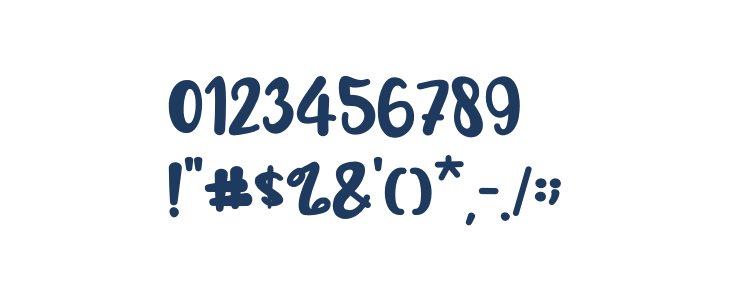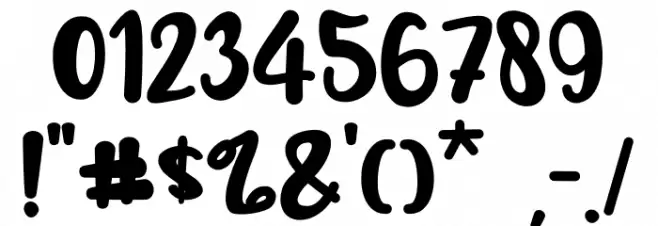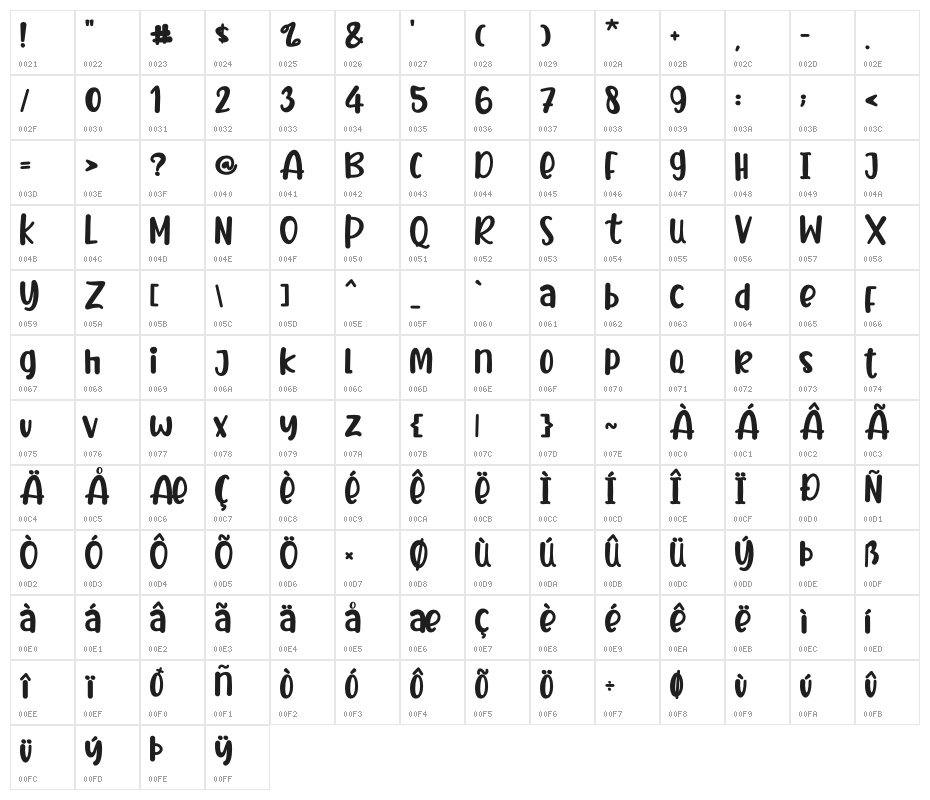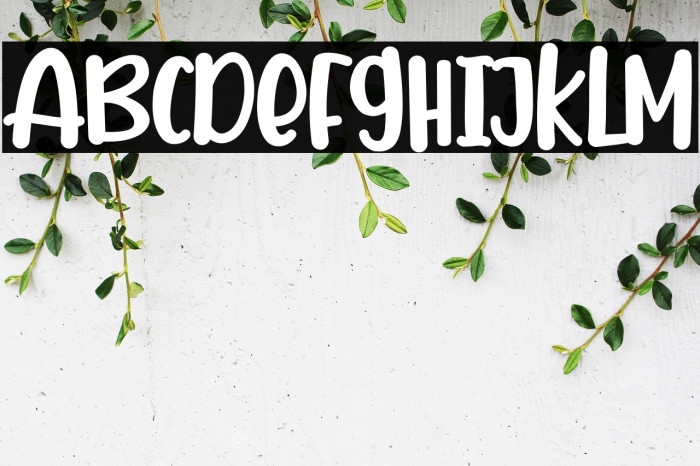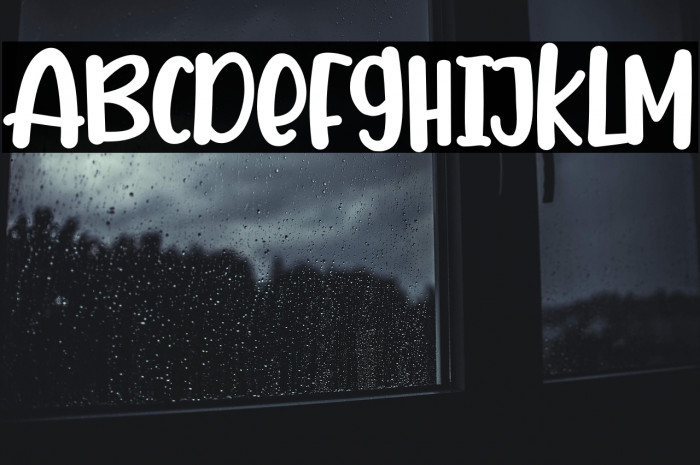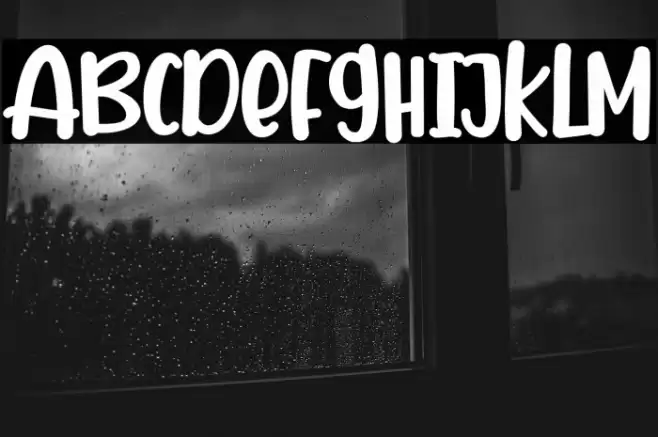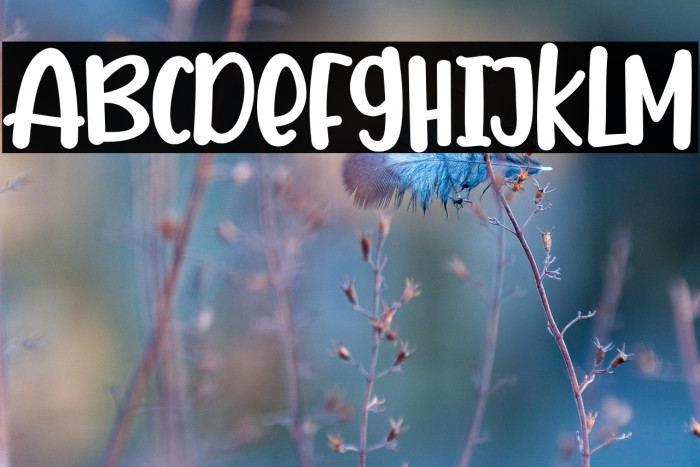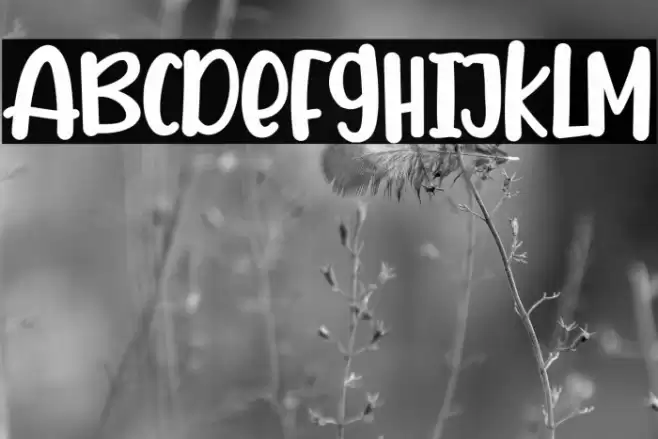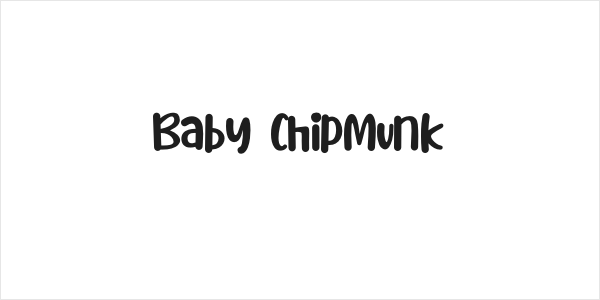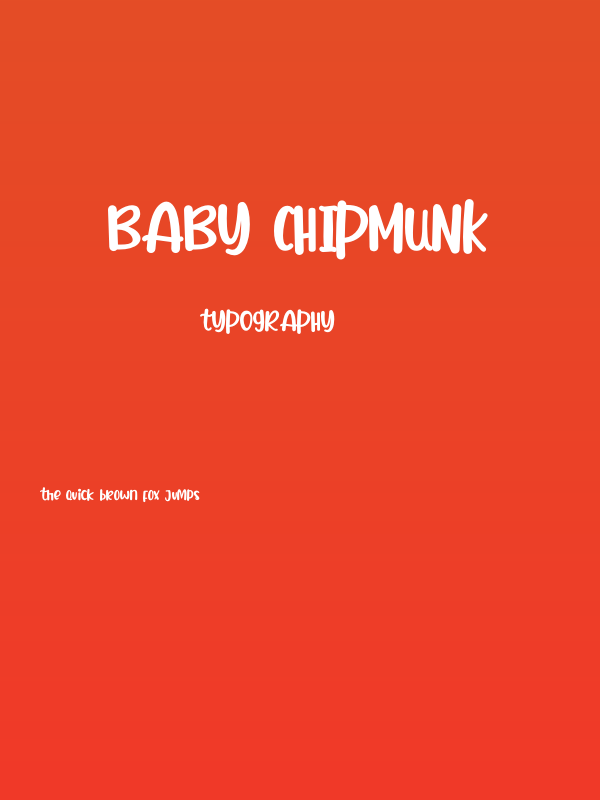
Baby Chipmunk Font
Baby Chipmunk Description
This playful and whimsical font features bold, rounded characters with a hand-drawn aesthetic. The uppercase and lowercase letters maintain a consistent thickness, giving the font a cohesive look. The numbers and special characters are equally bold and rounded, complementing the overall style. The font exudes a friendly and approachable vibe, making it ideal for projects that require a touch of fun and creativity. Its legibility is enhanced by the consistent stroke width and clear character shapes, making it suitable for various design applications.
Overall StylePlayful
Proposed ProjectsPerfect for children's books, playful branding, greeting cards, and creative posters.